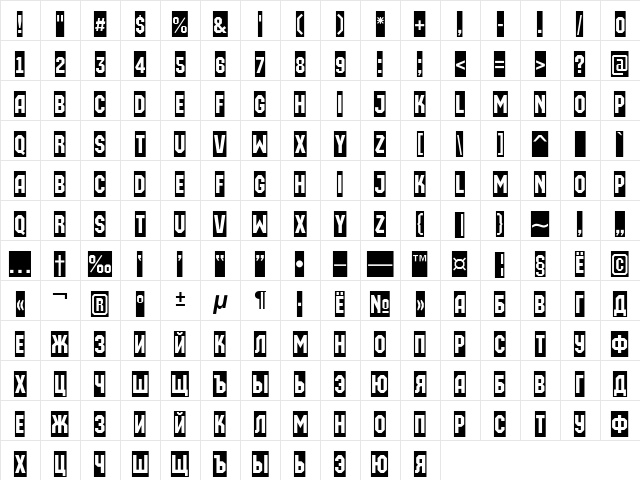
a_MachinaOrtoCm Regular
Design Context for a_MachinaOrtoCm Typeface
a_MachinaOrtoCm takes a measured approach to typography — its balanced proportions and neutral character make it a reliable workhorse for both digital and print work.